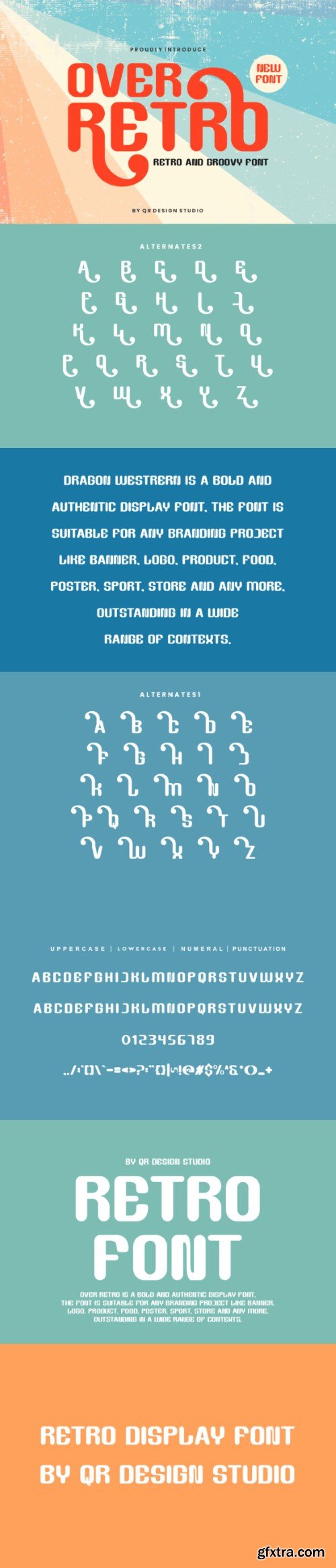
Over Retro is an incredibly cool and unique display font. It has a modern yet whimsical style and it will undoubtedly immerse your designs into a magical world.